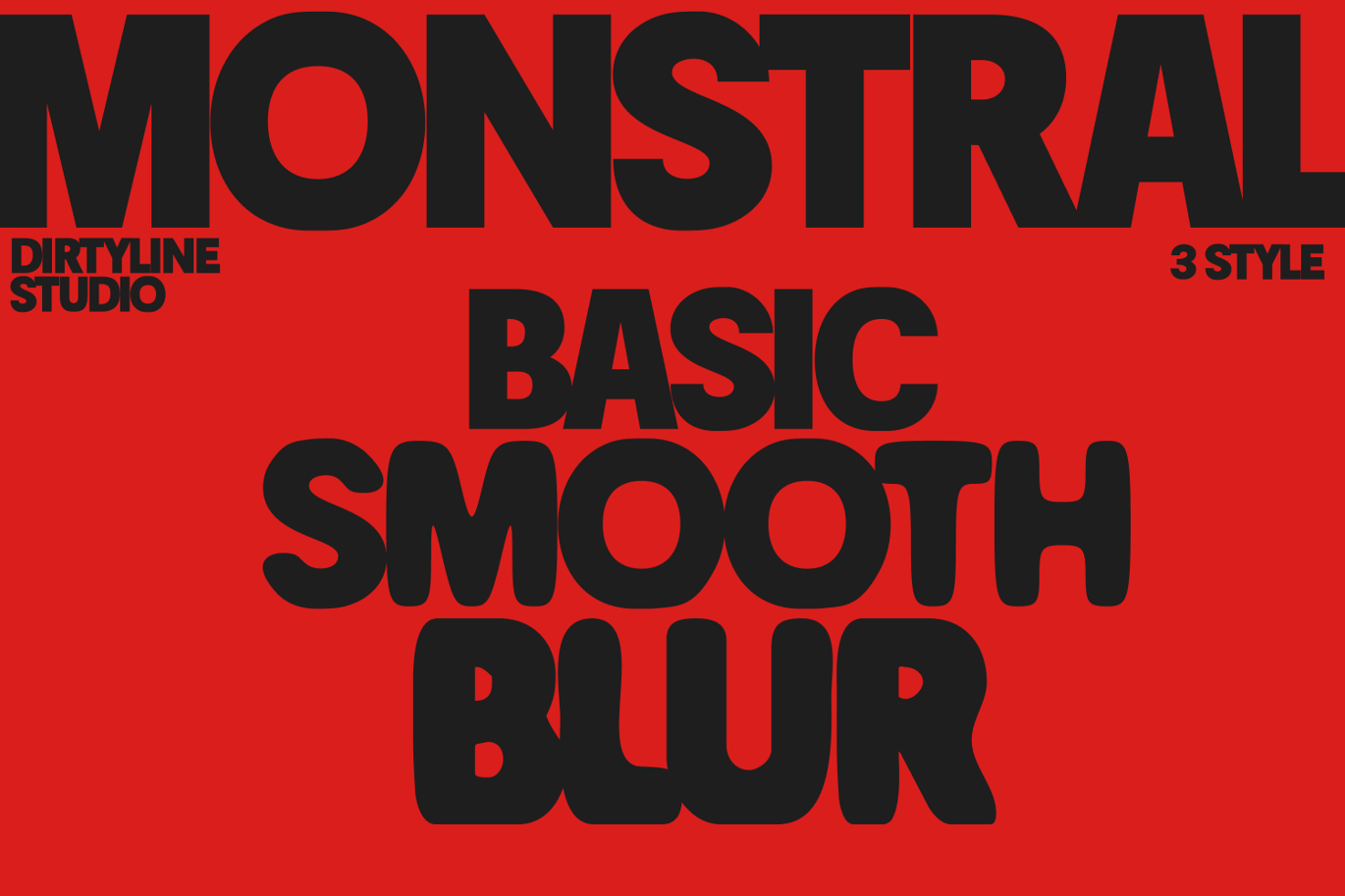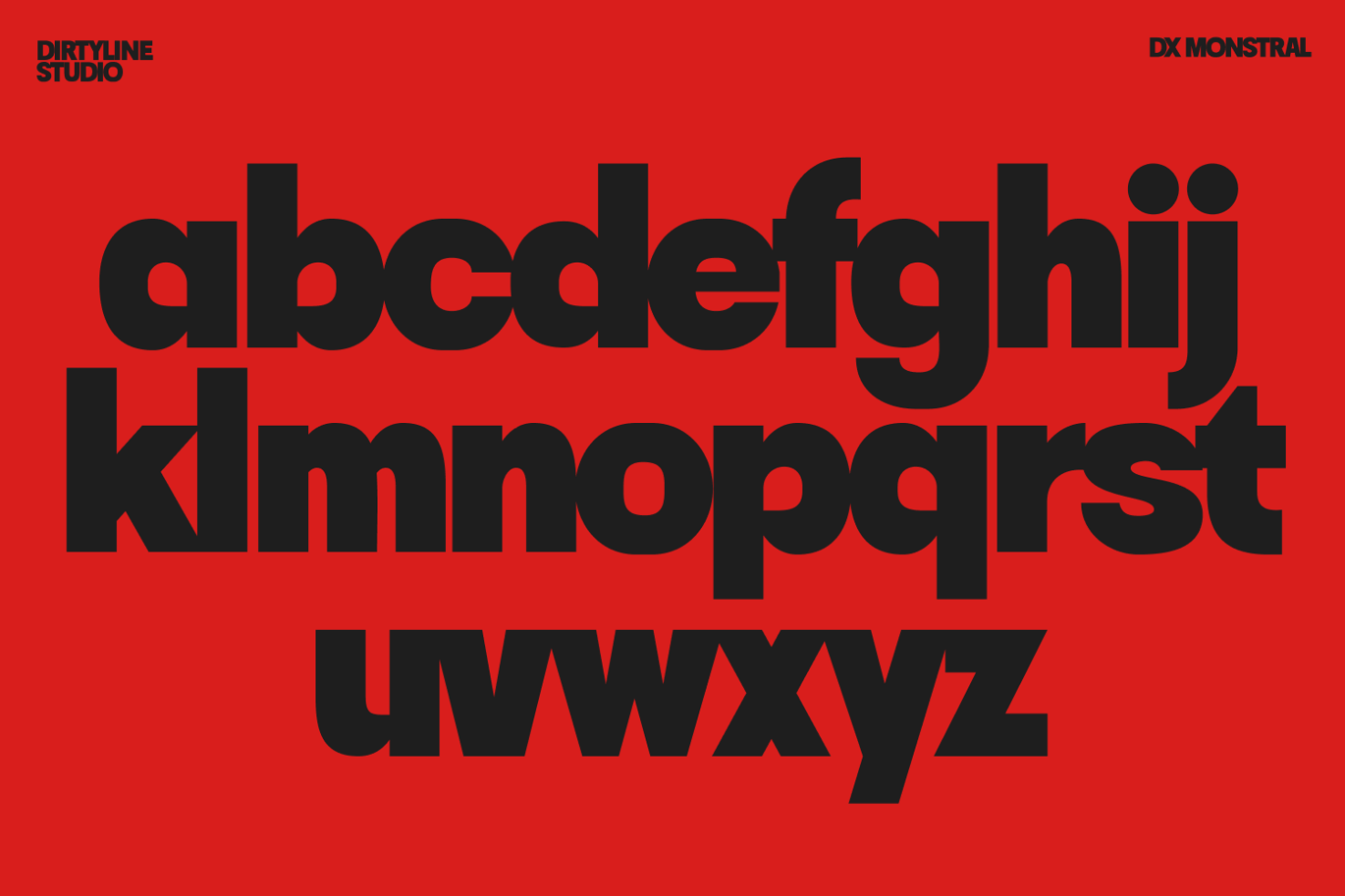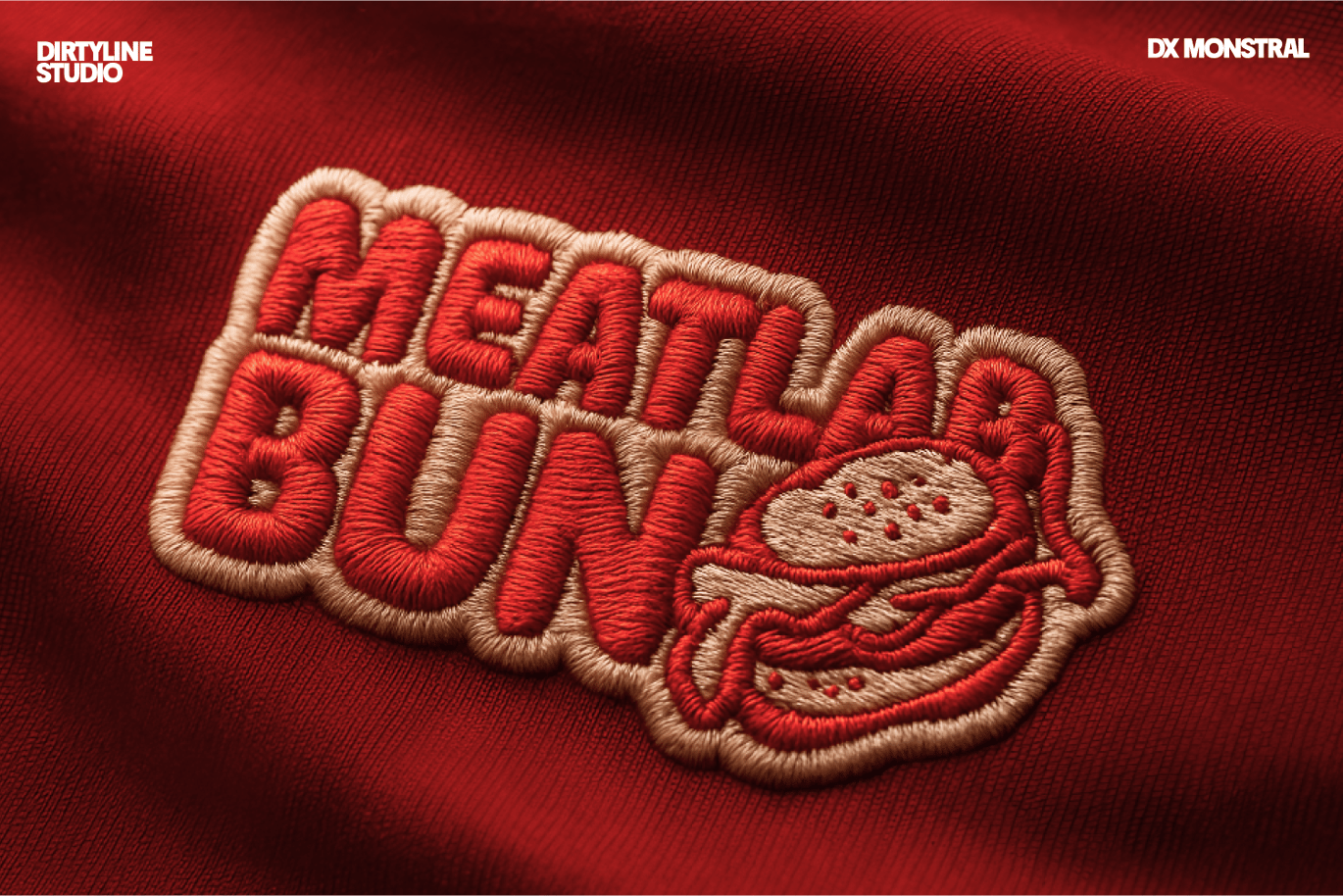
Monstral – Bold Display Sans Font is a versatile typeface ideal for various projects, including Sans-Serif, logos, branding, posters, blog headers, advertisements. The free version includes a full set of uppercase and lowercase letters, available in OTF, TTF, WOFF, WOFF2 format.
Monstral – Bold Display Sans Font